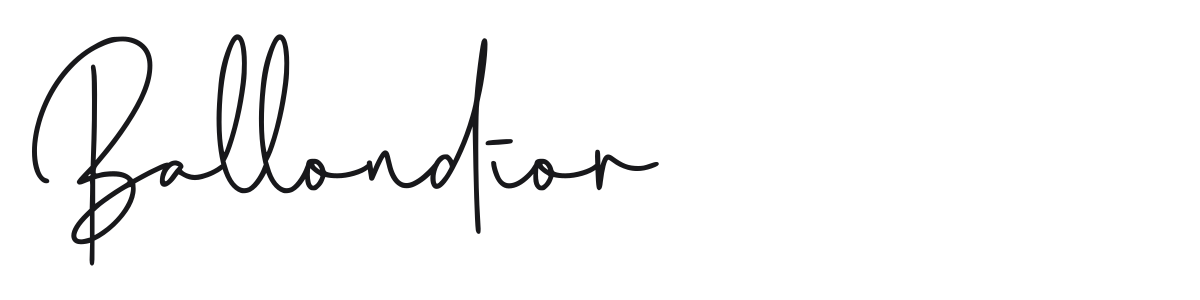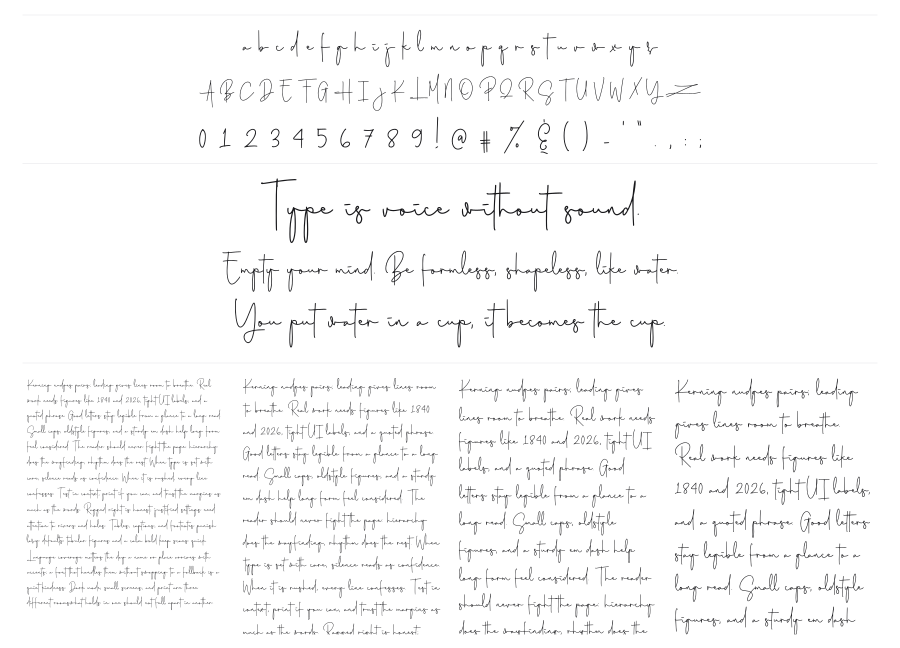
Ballondior
Ballondior is a thin casual signature script from Abo Daniel Studio with a natural, pen-on-paper flow. Long connecting strokes sweep across the baseline, giving each word a single unified gesture that works well in logotypes and personal branding. It carries the loose confidence of a real signature without trying too hard.